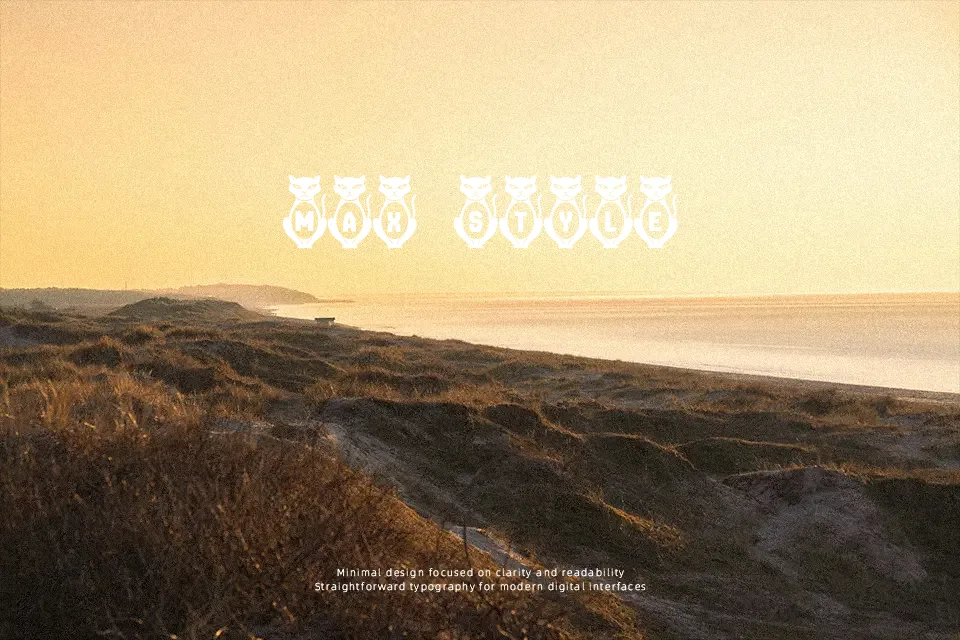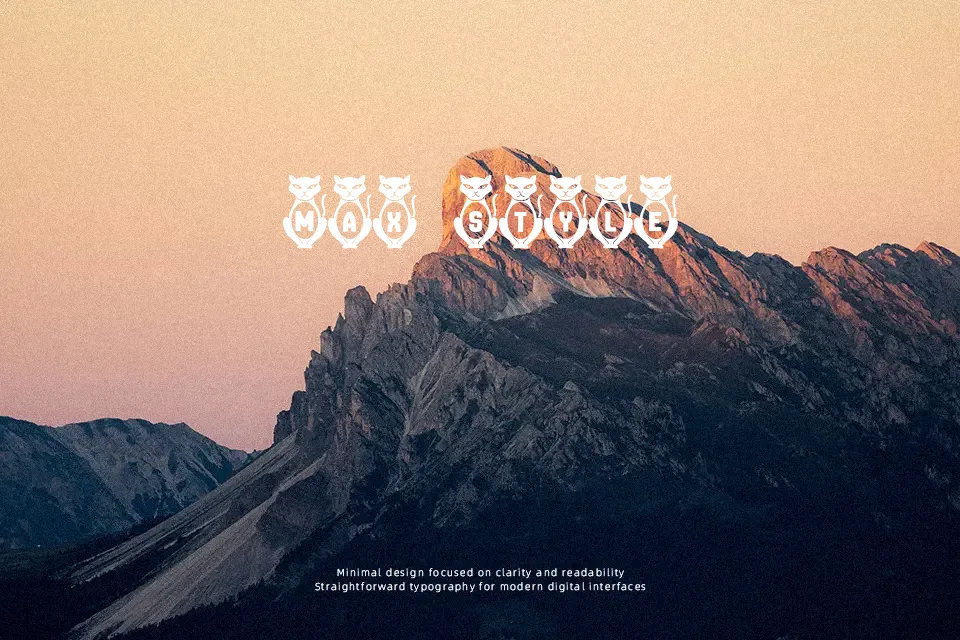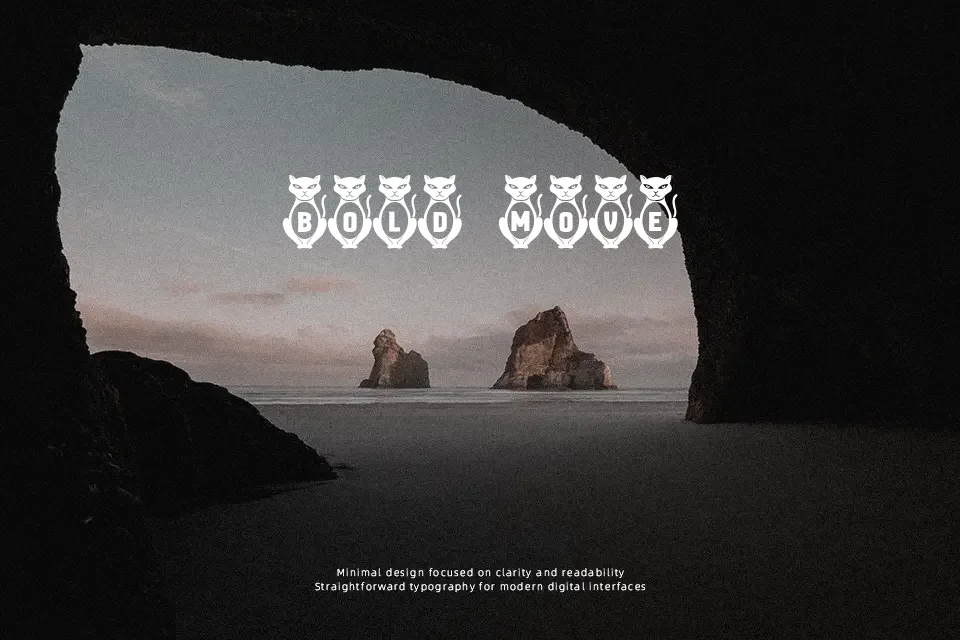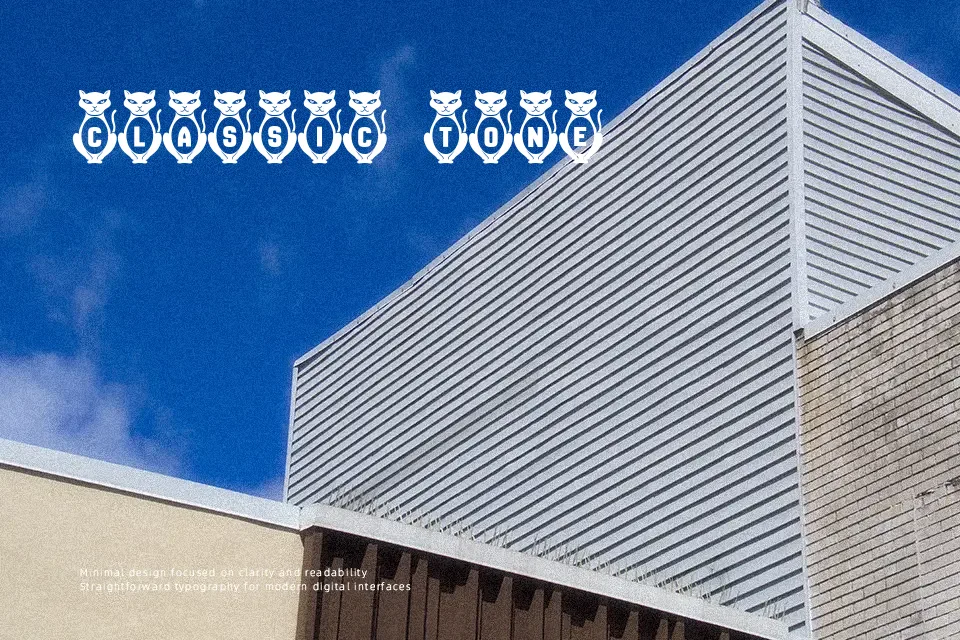
Kitties Font
Soft curves and rounded terminals give Kitties Font a distinctly cute, almost toy-like appearance. The strokes are fairly even with low contrast, and spacing leans slightly loose, which helps each letter feel airy and approachable. It carries a cartoon-inspired style that fits casual, lighthearted designs rather than anything formal. You’ll see it working well on kids’ merchandise, pet-related logos, or cheerful social posts where personality matters more than precision. However, the playful shapes can become distracting in paragraphs, and readability drops at smaller sizes. It performs best in short, expressive text rather than dense layouts.
children’s book covers
pet shop logos
cute social media graphics
birthday invitation titles
small UI text
minimalist branding systems
Perfect for headline, invitation, and kids, with a creative and cartoon style.